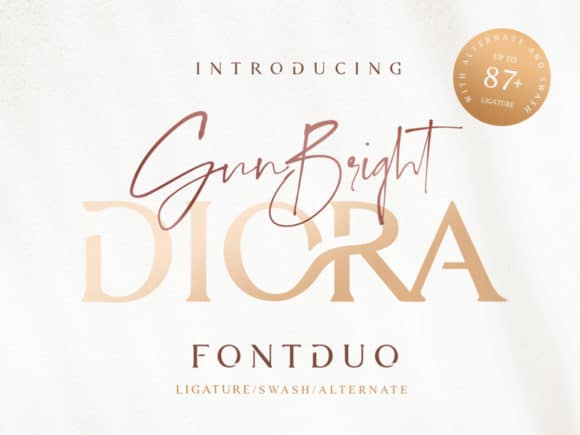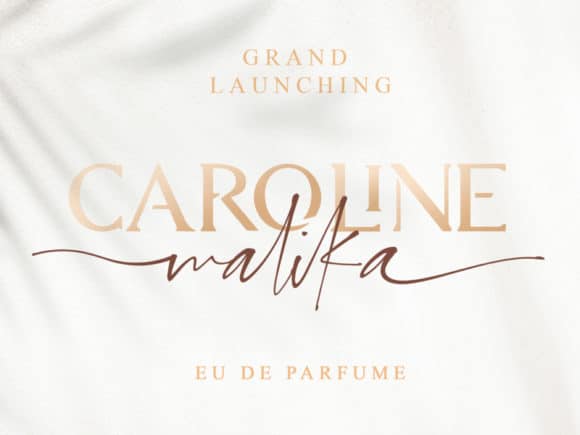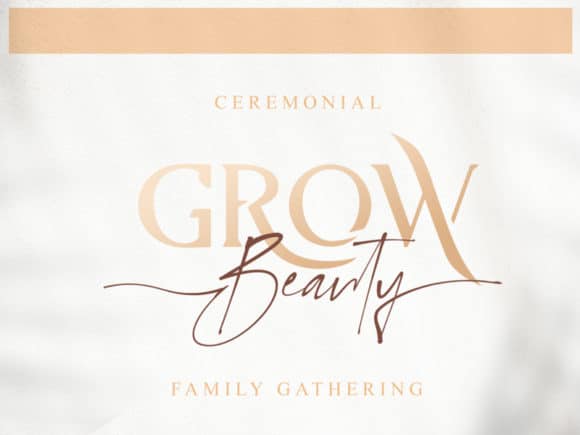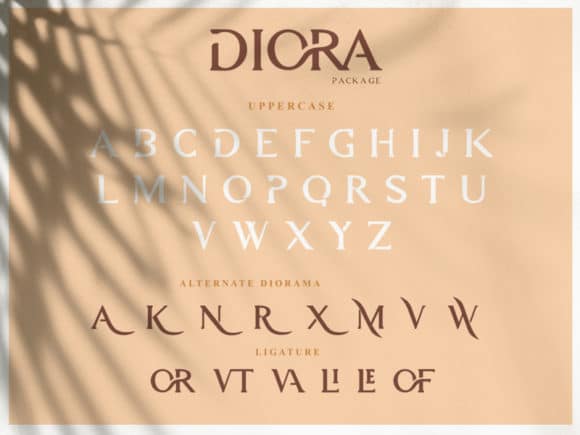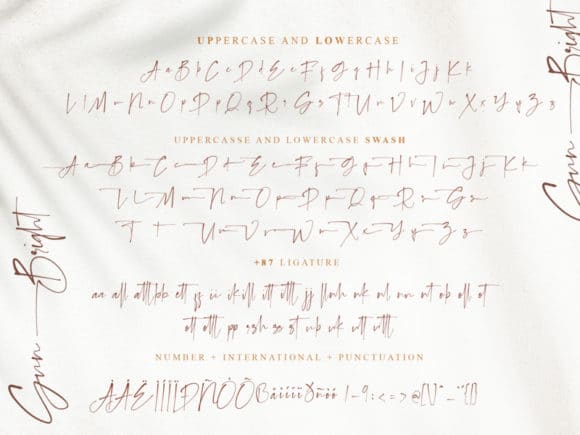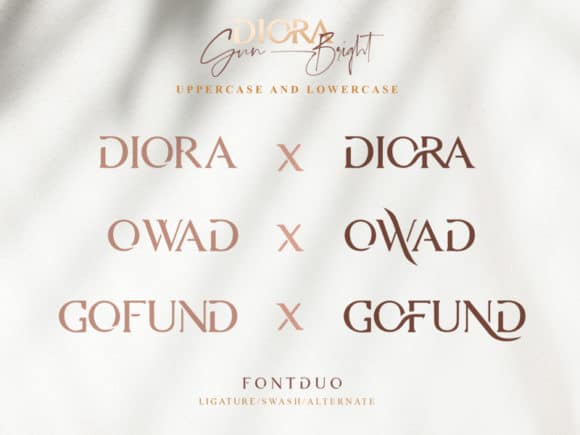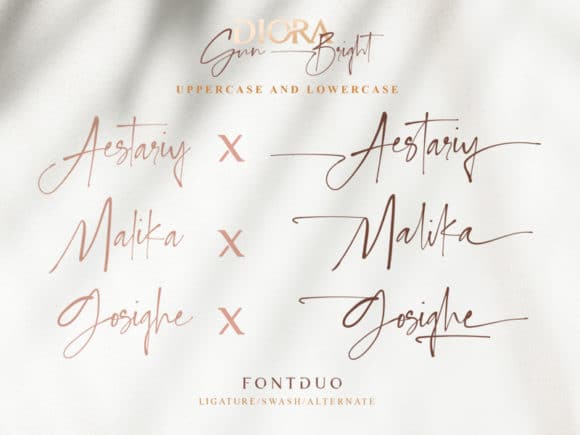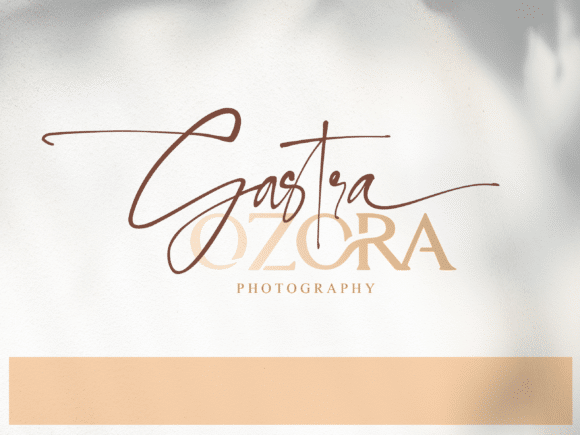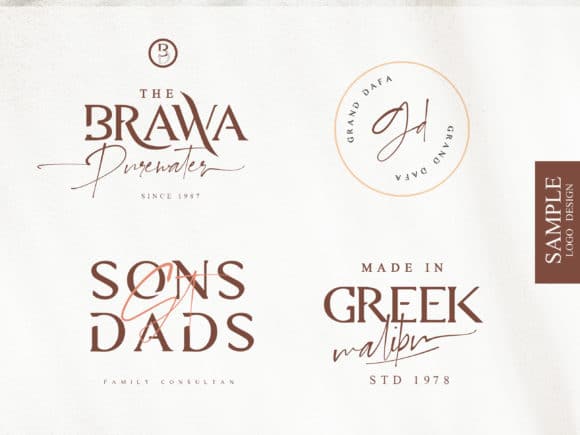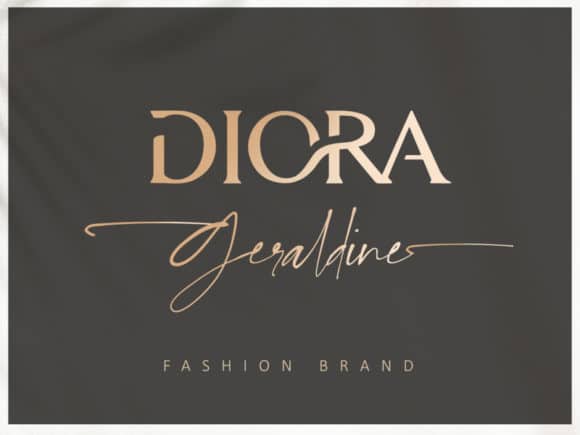
Diora Sunbright Script Font
Diora brings together a stunning script and a timeless serif font. Combine these two great fonts to achieve extraordinary results.